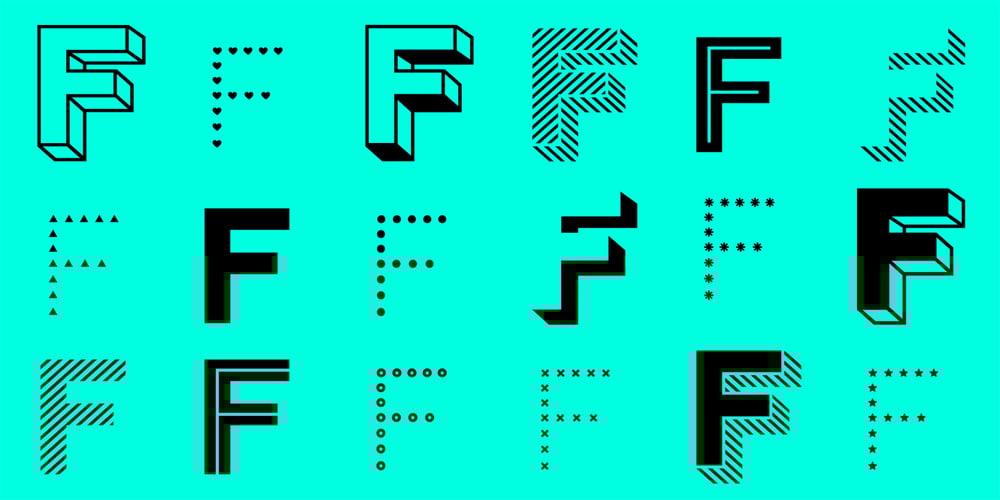
Clown
Clown font
Clown Font Family was designed by Tereza Šmídová and published by Tereza Smidova. Clown contains 18 styles and family package options. Layering of individual styles forms the basis for the sans typeface Clown. The font family comprises 18 various styles that precisely fit together. Simply cover one style over another to create over 150 original typefaces to freshen up your work. Clown is a striking headline font that would work well for a retro-style café, bar or club and evokes the style of a Wild West saloon. A similarly decorated typeface was popular for decorating posters and advertisements in the early 19th century. The font family contains uppercase letters and diacritics for most Latin languages, figures, arrows and currency symbols.